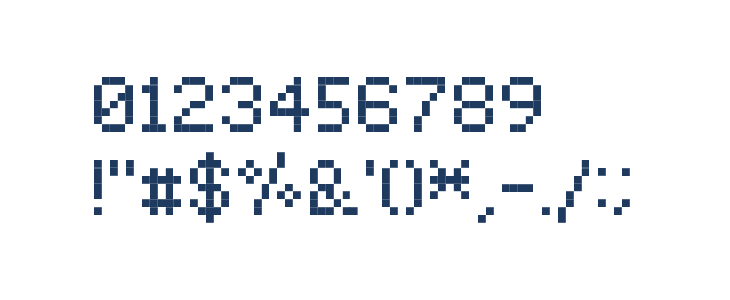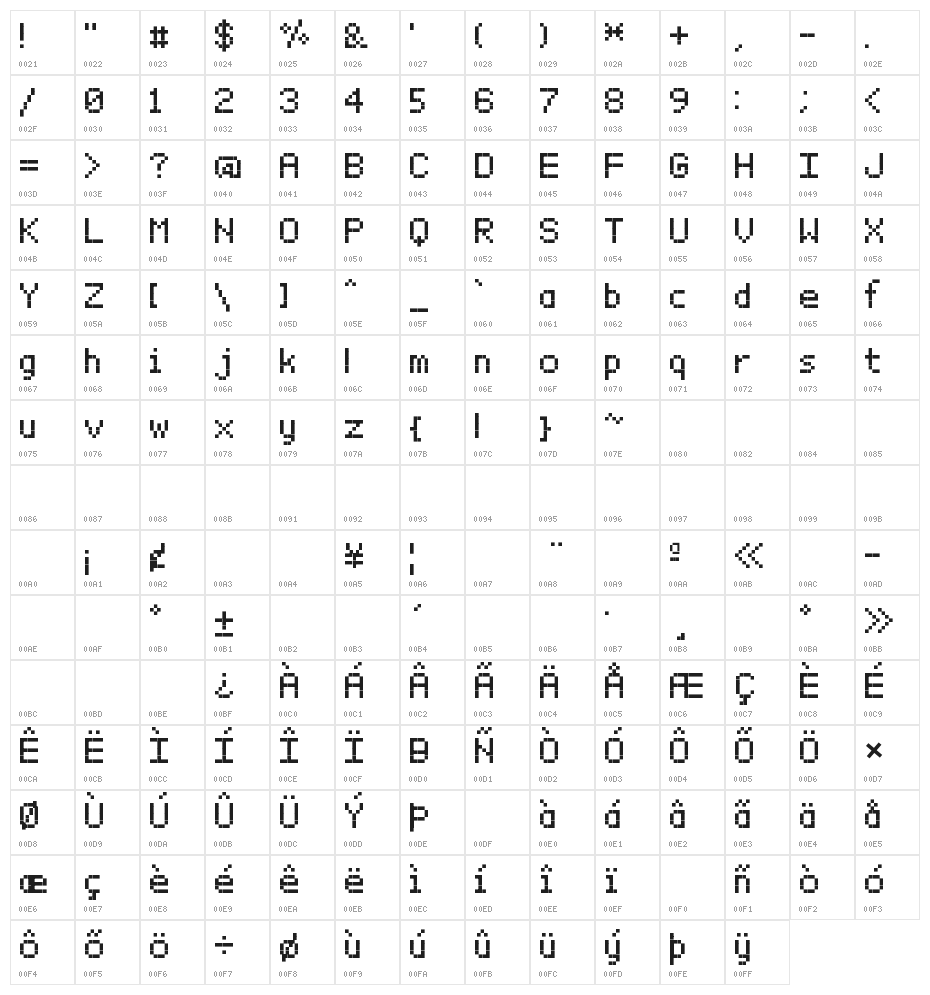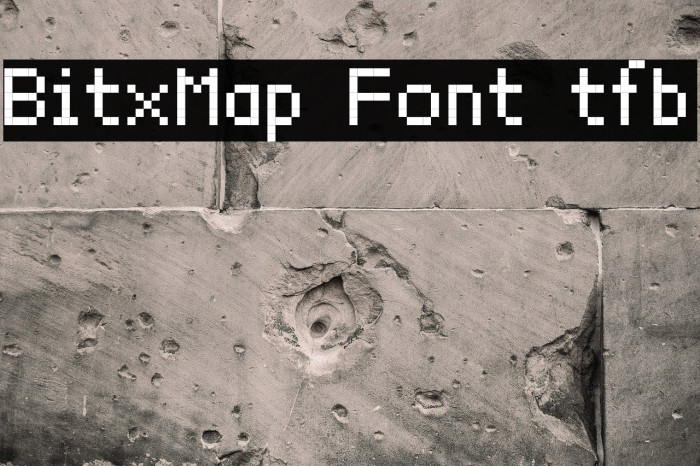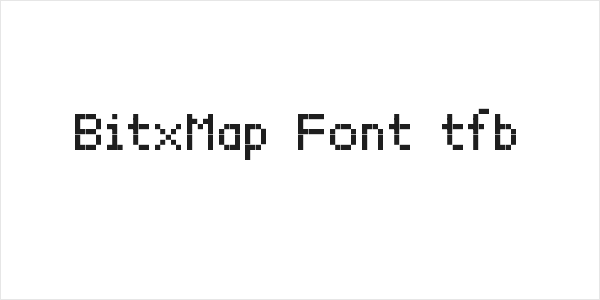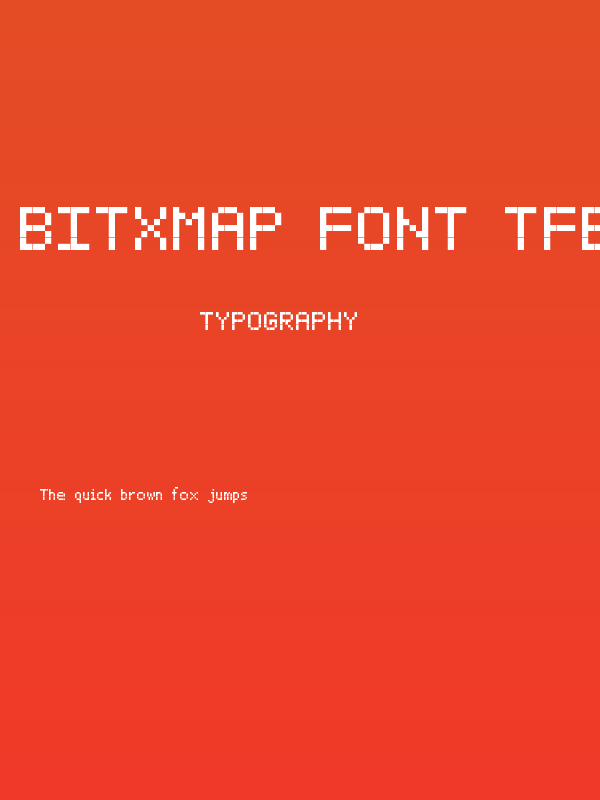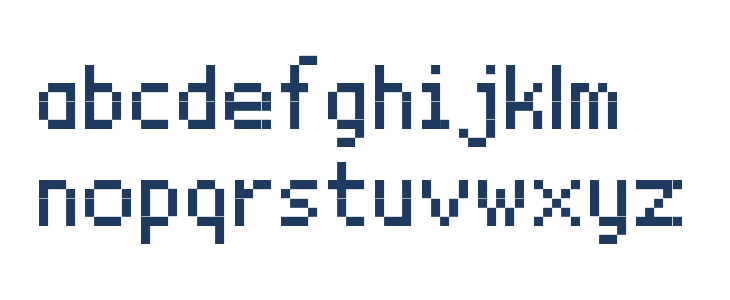
BitxMap Font tfb Font
BitxMap Font tfb Description
This font is a pixelated, bitmap-style typeface that evokes a retro, digital aesthetic reminiscent of early computer graphics and video games. Each character is composed of a grid of square pixels, giving it a blocky and geometric appearance. The uppercase and lowercase letters maintain a consistent height, with a uniform width that contributes to its monospaced feel. The numerals and special characters follow the same pixelated design, ensuring visual cohesion across all elements. This font is ideal for projects that aim to capture a nostalgic, tech-inspired look, or for use in digital art and design where a vintage computer style is desired.
| Use Case | Logos, Digital art, Video games |
| Proposed Projects | Ideal for retro video games, digital art, tech-themed designs, and nostalgic branding. |